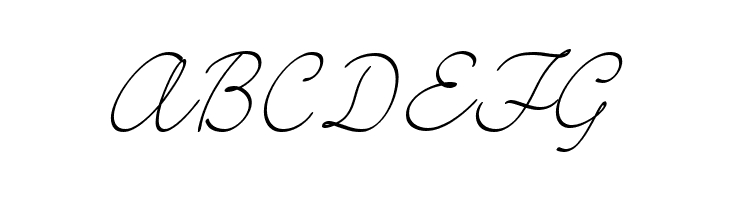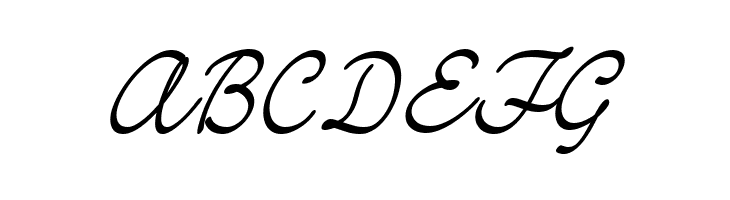
SunnySamPERSONAL-Bold Font
A bold, cursive font with a smooth, flowing style and a handwritten feel.
SunnySamPERSONAL-Medium Font
A cursive, handwritten-style font with elegant, flowing strokes.
SunnySamPERSONAL-Thin Font
A thin, elegant script font with a natural handwriting style.